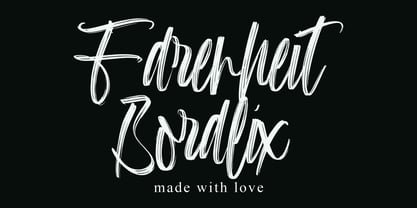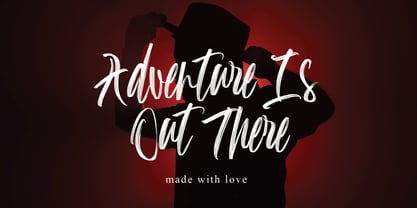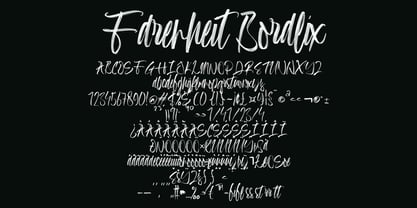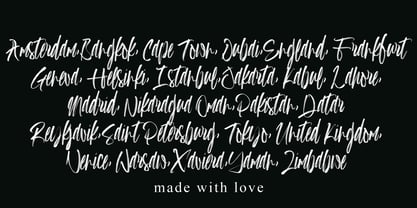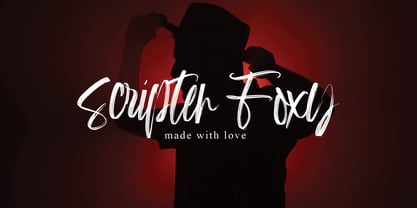
Farenheit Boralix
by Ayska
The Farenheit Boralix Font Family was designed by Dhoni Trihatmoko and published by Ayska. Farenheit Boralix contains 1 styles. More about this family
Discover Farenheit Boralix, a font that brilliantly combines the crisp sophistication of modern typography with the endearing grace of handwritten letters. This distinct typeface represents a veritable goldmine of creativity, emanating a captivating charm that makes it an ideal resource for fine-tuning your artistic expression. Fundamentally versatile, Farenheit Boralix effortlessly adapts to your blog, infusing a lively flair to your online journal, lending its enchantment to your printed invitations, or giving life to your heartfelt messages. Explore the persistent allure and creative strength of Farenheit Boralix, which elevates the charm of your photo collections or brings a hint of uniqueness to your home decor. Possessing the unique ability to turn ordinary visuals into mesmerising pieces of art, this exceptional font infuses each pixel with a captivating aesthetic. Plunge into the pleasurable depths of Farenheit Boralix, your beacon of creativity guiding you towards an imaginative haven of unforgettable designs. Set sail on a journey filled with artistic inspiration, guided by Farenheit Boralix, and indulge in the joy of seeing your creative ideas blossom into stunning digital art.
Designers: Dhoni Trihatmoko
Foundry: Ayska